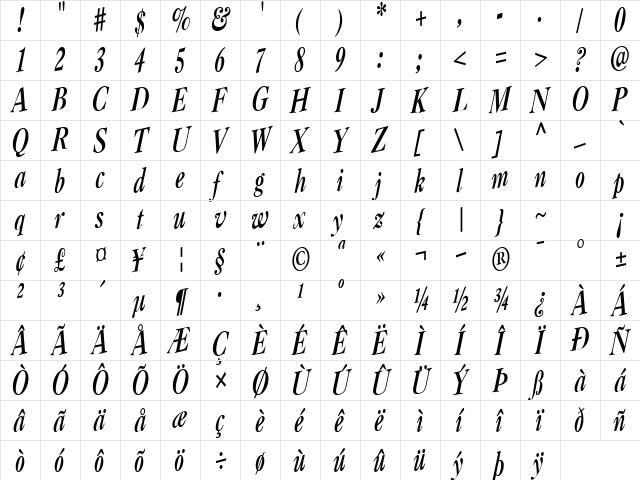
Green Regular
Design Context for Green Typeface
Green is a composed and adaptable typeface that performs quietly and consistently across a wide range of design contexts.